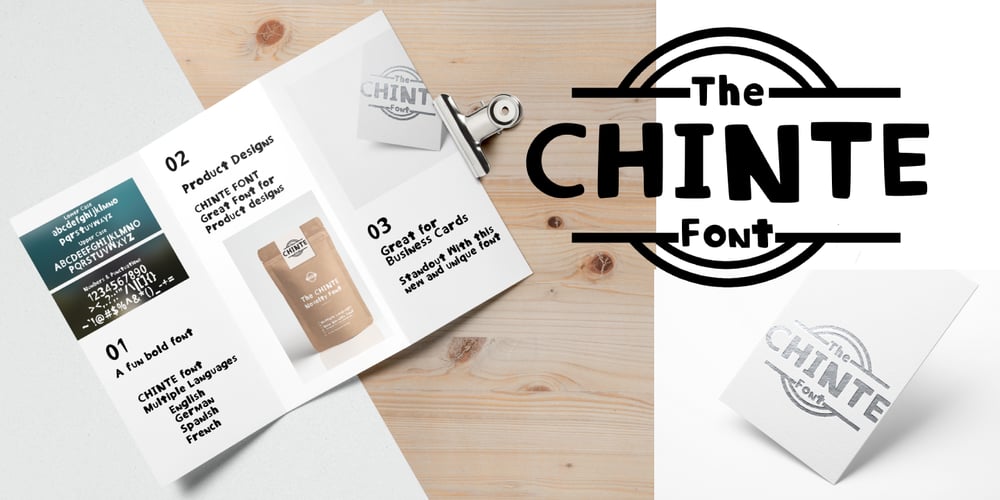
Chinte
Chinte font
Chinte Font Family was designed by Chez Middleton and published by FonTastic Designs by Chez. Chinte contains 1 styles and family package options. Looking for a fun new font? Look no further I have just what you’ve been waiting for. This new novelty font that I call Chinte is a bold fullcase font. This font comes with multiple languages and symbols. And had multiple uses: Branding, Logos, and many more of your projects.